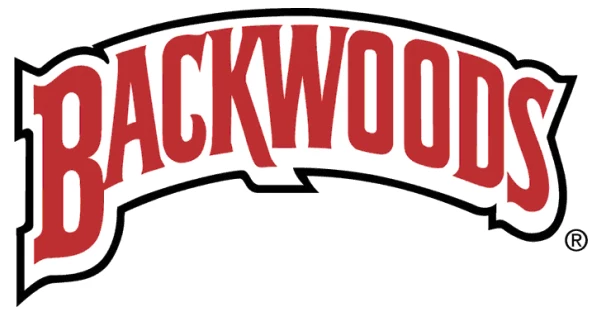
Trying to create shape around font, like in the image attached
Maybe I'm not sure what this procedure is actually called, but the difference between just a regular stroke around this text is that most of the outer layer is not around the text.  It's more of a arced rectangular shape but has adjustments to fit the fonts outer-lying shape.  I.e the K in the logo.  Can anyone help?
I'm pretty sure that this logo was created in Illustrator and not in Photoshop, you should move this question in the Ai section and of course if you have Ai.
in Ai you have a text tool that allows you to edit individual letters after using the arc text distortion ... in Ps you should type the letters separately in order to modify the "K" for example.
to get the same path in Ps you should duplicate the text layer 3 times (once placed the whole word with the "K" resized) ... change the color of the second level below to white and resize ... same for the third level below changing to black and resize.
this logo, however, is vector graphics.
I am afraid, that will not work as a layer-style. You will have to draw the "arced rectangular" with the pen tool.... Best way to do this is to use Illustrator. You can then place the Text in PS an add layer-effects.
Still doable with Photoshop though.
Make your type layer and transform it
Convert it to a shape layer from the type menu
Copy it.
Select any of the shape tools to give you the fill and stroke options
Give the upper a layer a white stroke, and lower layer a black stroke.  The black stroke obviously has to be thicker.
If it is not working right off the bat, click on the Line dropdown > More Options > Change settings to Outside and corners to Miter
Job done.
Have you tried addind what want you want usinf layer style effects?  You can gang up on effect these days perhape adding several strokes effects can do it. can do it.